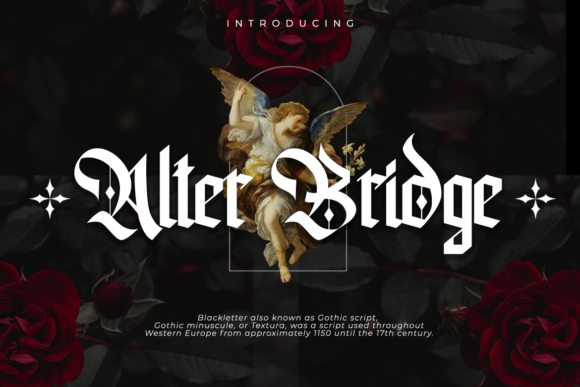
Journey through time and embrace the captivating allure of the Alter Bridge font, a masterpiece inspired by the grandeur of Gothic and exquisite styles. This modern blackletter font stands as a testament to the beauty of bold and unique typography, ready to elevate your creative projects to new heights.
Indulge in the intricate details and sweeping curves of each character, meticulously crafted to evoke a sense of timeless elegance. Let Alter Bridge carry your words into the realm of the extraordinary, transforming ordinary text into captivating statements that demand attention.
Unleash your imagination and explore the endless possibilities that await with Alter Bridge. Create product logos that exude sophistication and strength, design poster titles that command attention from afar, and craft headlines that leave an unforgettable impression.
Imagine the allure of wedding invitations adorned with Alter Bridge's timeless charm, adding a touch of elegance to your special day. Envision clothing brand logos that stand out from the crowd, their bold presence echoing the spirit of individuality.
Delve into the world of vintage designs, where Alter Bridge shines as a beacon of authenticity. Its timeless aesthetic evokes a sense of nostalgia, transporting you to an era of grace and sophistication.
With Alter Bridge as your creative companion, you hold the power to transform ordinary designs into captivating works of art. As you witness your projects come to life, you'll marvel at the transformative power of this extraordinary font.
Seize the opportunity to elevate your creative expression and leave a lasting impression on your audience. Embrace the allure of Alter Bridge today and embark on a journey of boundless creativity.